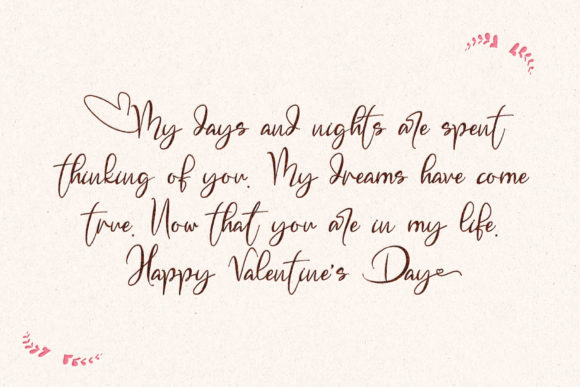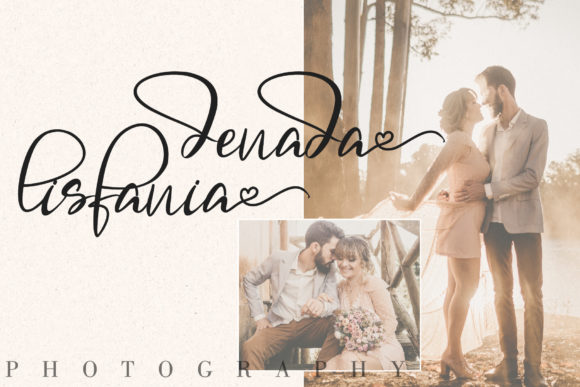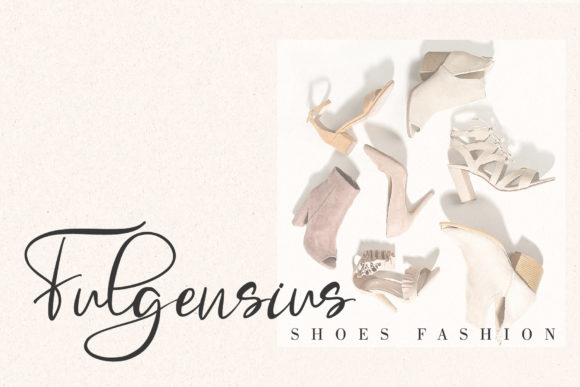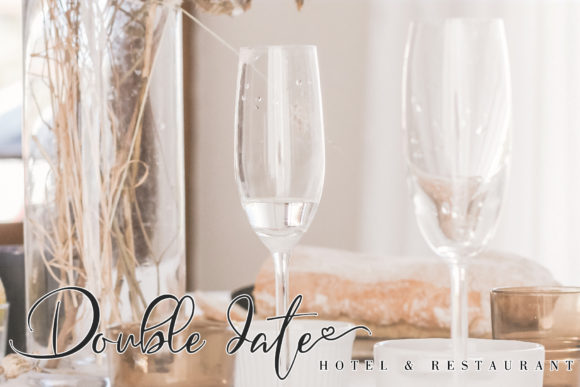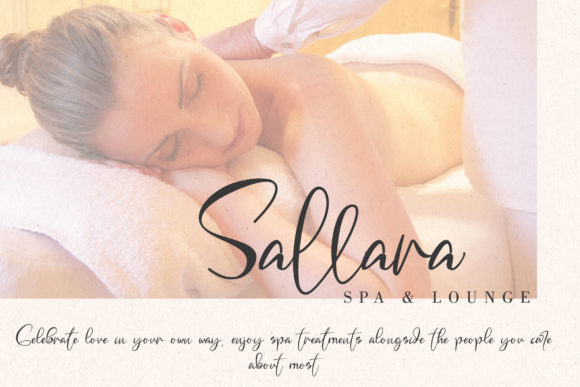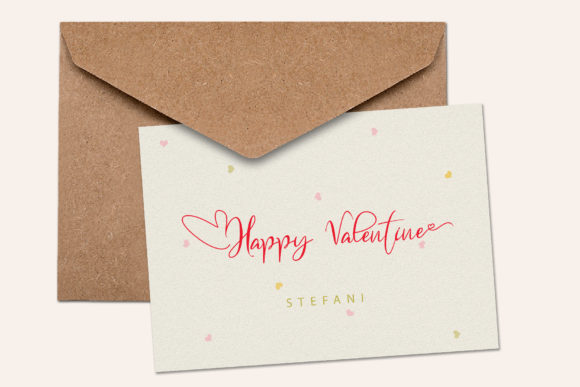
Introduction to Brenda Valentine Font
Brenda Valentine is a cute handwritten font.
It will add a romantic touch to any crafting project .
Key Features of Brenda Valentine Font
Why Choose Brenda Valentine Font?